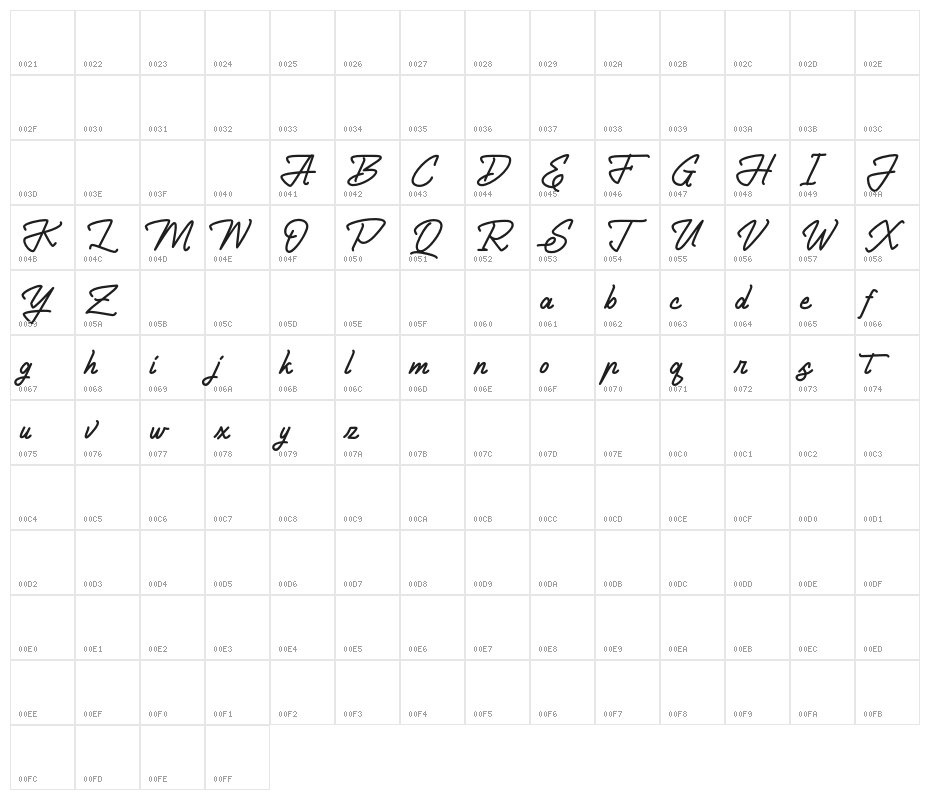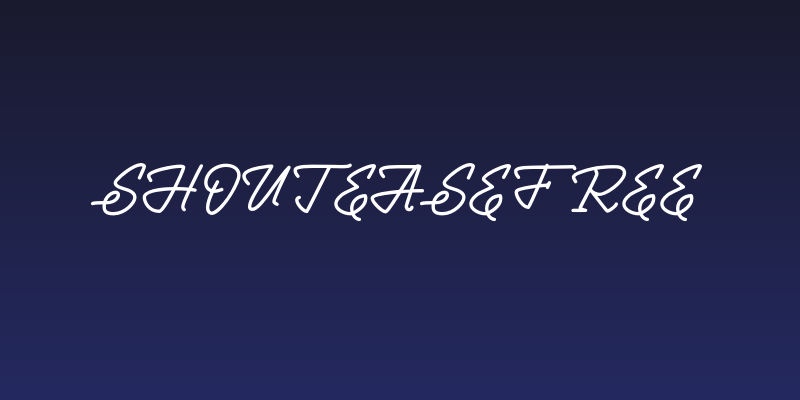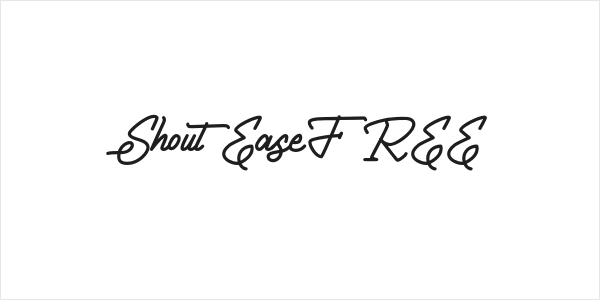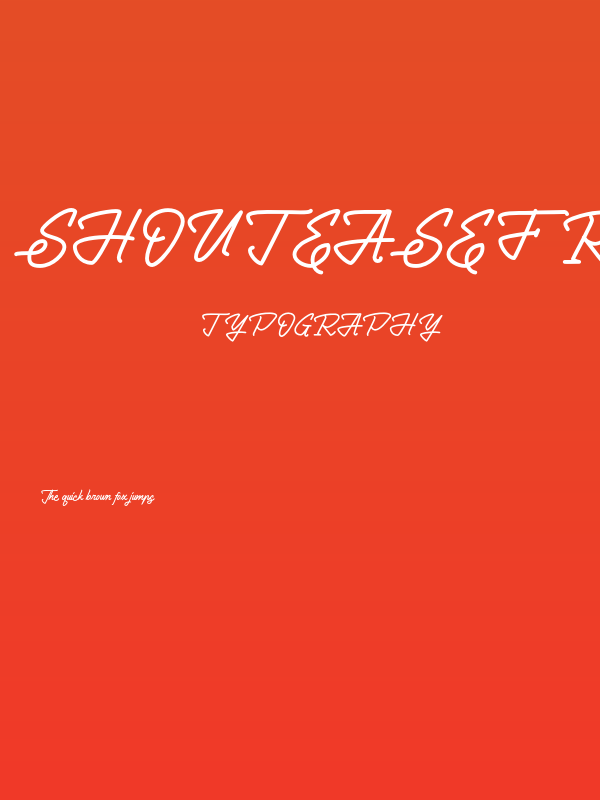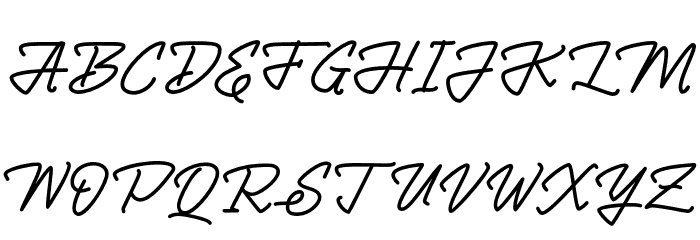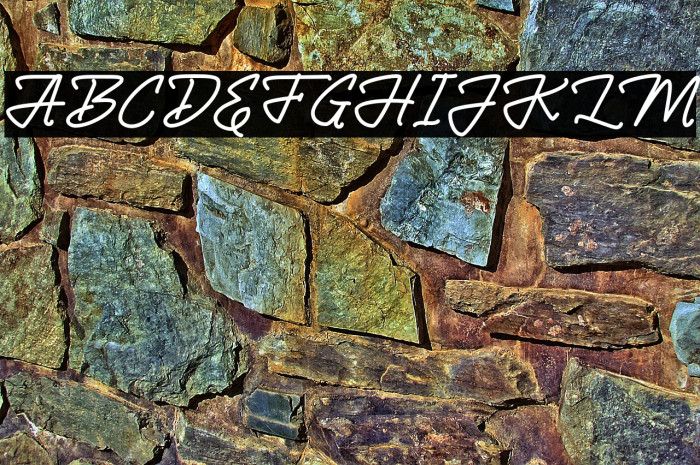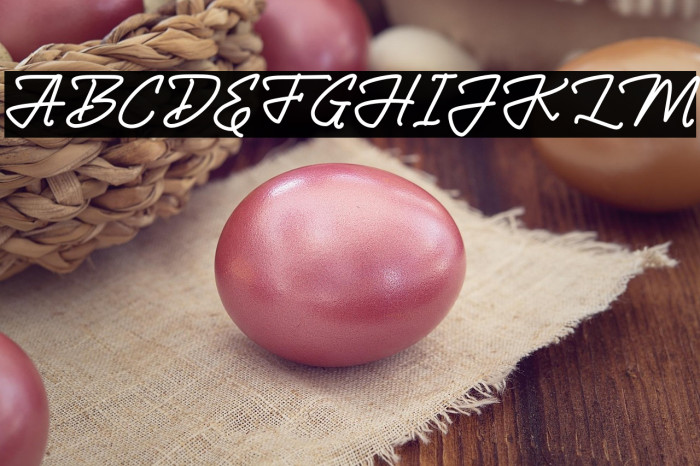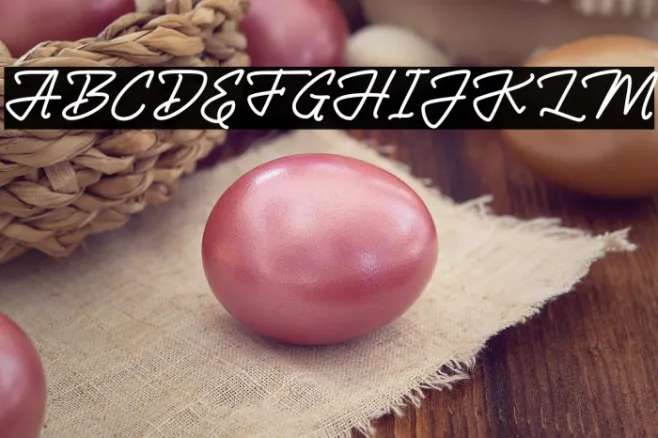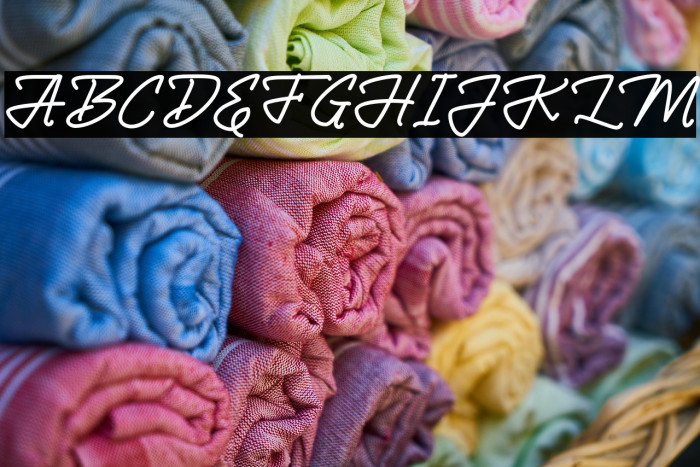
ShoutEaseFREE Font
ShoutEaseFREE Description
This font features a dynamic and flowing script style, characterized by its elegant and cursive letterforms. The uppercase letters are slightly more formal, with a consistent slant and smooth curves, while the lowercase letters exhibit a playful and connected appearance. The strokes are moderately thick, providing a balanced contrast that enhances readability while maintaining a stylish flair. The font's design is reminiscent of traditional calligraphy, yet it retains a modern touch, making it versatile for various design applications.